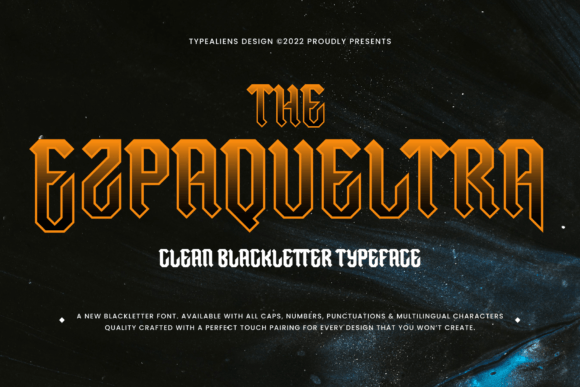
Step into a world of visual grandeur with Ezpaqueltra, the blackletter font that commands attention and leaves an imprint of elegance. Its masterful design, crafted by the visionaries at typealiens, breathes life into your creative projects, transforming them into captivating masterpieces.
With Ezpaqueltra, you hold the key to unlocking a realm of design possibilities. Its bold and daring typography dances across your screen, captivating audiences with its undeniable presence. Whether you're crafting product packaging, redefining your brand identity, or embarking on artistic endeavors, Ezpaqueltra becomes your steadfast companion, elevating your work to new heights of visual prowess.
As a font for neon text, Ezpaqueltra blazes a trail of brilliance, illuminating your words with an ethereal glow. Its strokes, like strokes of lightning, slice through the darkness, leaving a dazzling imprint that commands attention and sparks curiosity. Let your words radiate with an energy that electrifies, leaving an indelible mark on the minds of those who behold them.
Ezpaqueltra's versatility knows no bounds, seamlessly adapting to a symphony of design styles. It dances gracefully across posters, and flyer, leaving a trail of visual enchantment. Its charm extends to branding projects, where it weaves a tapestry of visual intrigue, captivating audiences and leaving a lasting impression.
Embrace Ezpaqueltra, and embark on a journey of creative liberation. Let its bold strokes ignite your imagination and empower you to manifest your designs with audacious confidence. Elevate your work beyond the realm of the ordinary and into the stratosphere of the extraordinary, where boundaries dissolve, and creativity knows no limits.